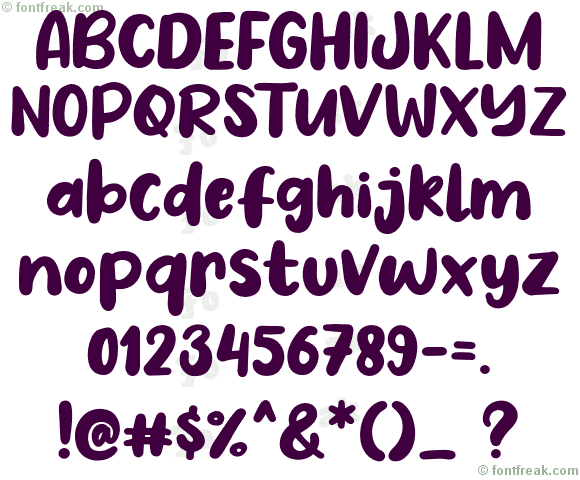
No Virus
About No Virus
The No Virus font by Syaf Rizal is a striking display typeface that stands out for its unique character and boldness. As a decorative font, it features a playful yet impactful design that utilizes a heavy stroke weight, providing a strong presence in various applications. The letters are crafted with rounded edges, giving them a friendly and approachable look, while the spacing is well-balanced, ensuring readability even at larger sizes. This font lacks intricate decorative elements, allowing its straightforward design to shine through.
Ideal for a variety of creative projects, the No Virus font is perfect for eye-catching movie posters, trendy restaurant menus, and artistic event invitations. Its boldness makes it suitable for branding materials, especially for businesses aiming to convey a modern and vibrant identity. Graphic designers will find this font particularly appealing for projects that require a touch of personality, while small business owners can utilize it to enhance their marketing materials and social media graphics. Content creators looking to make a statement in their visual storytelling will also appreciate its distinctive style.